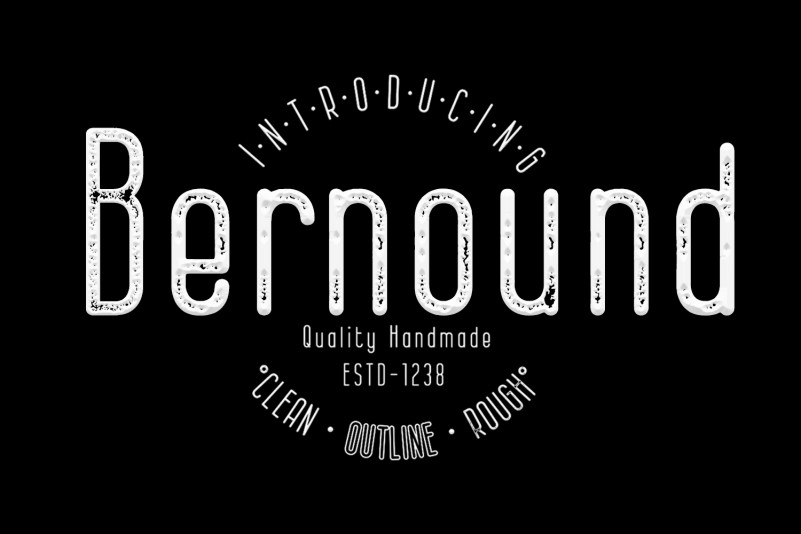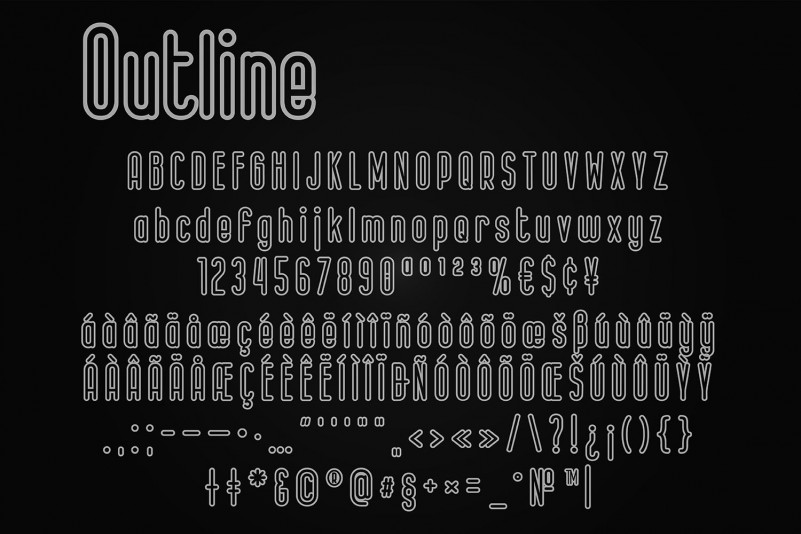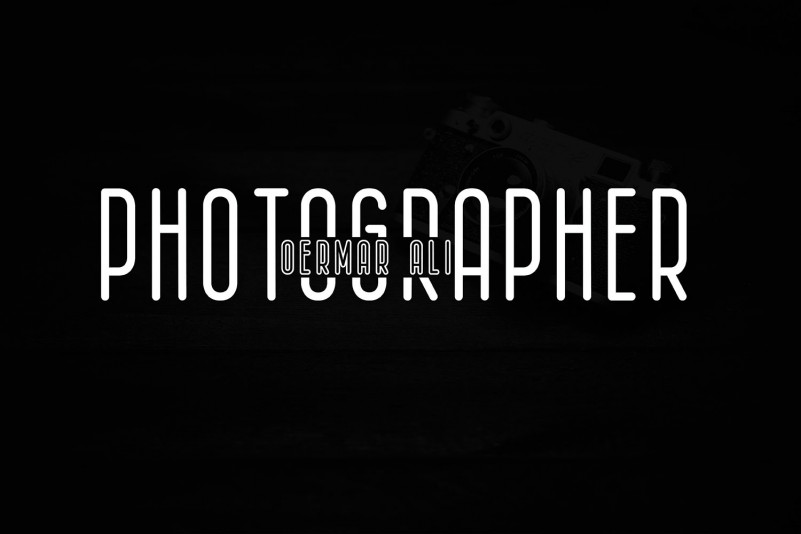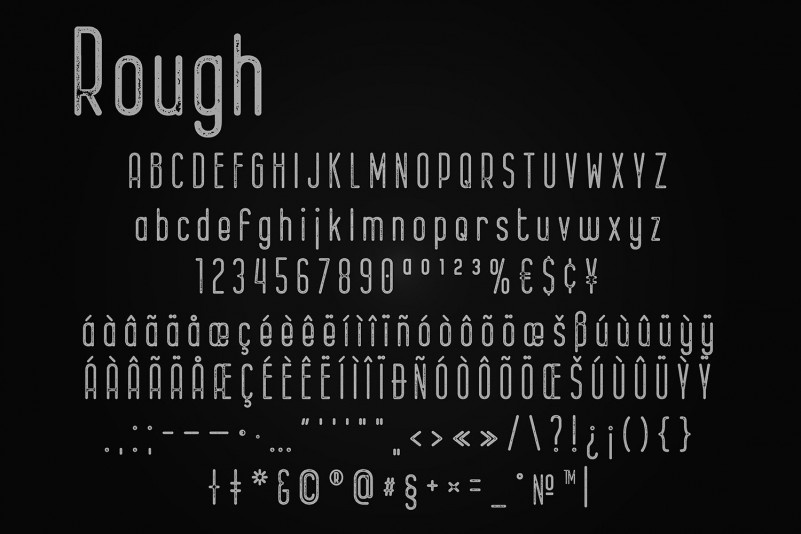
The Bernound Font is an amazing typeface which comes in three weights. The clean weight comes with rounded corners and a slim shape that presents a minimalist impression. The outlined weight has a fancy feel when displayed on its own, and the rough weight has a vintage, rustic, and grunge look. All weights can be combined perfectly which gives you the opportunity to create endless unique designs with just this one download.